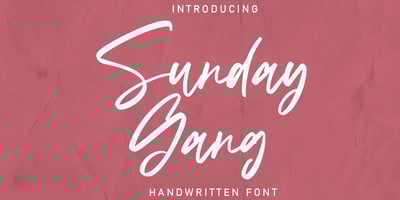
Sunday Gang Font Family was designed by Asep Rendi and published by Arendxstudio. Sunday Gang contains 1 styles and family package options. Sunday Gang is a handwritten font which is very elegant and modern for you to use and your design interests be it for logos, branding names, posters, podcasts and so on. This is perfect for you all.Features:1.Uppercase & Lowercase 2.Numbers & Punctuation 3.Multilingual Support 4.LigaturesI really hope you enjoy it – comments & likes are always welcome and accepted. More importantly, don’t hesitate to send a message if you have a problem or question. Now just read this, go there and make it happen 🙂